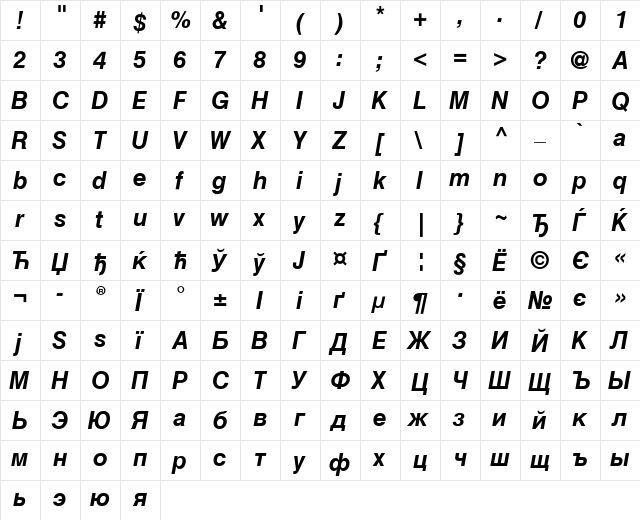
HelveticaCyr Upright Bold Italic
Design Context for HelveticaCyr Upright Typeface
HelveticaCyr Upright is a composed and adaptable typeface that performs quietly and consistently across a wide range of design contexts. The dynamic lean of this cut emphasises speed and emphasis in any layout. Its bold stroke weight gives it real presence on the page.
Pro Tip: Use HelveticaCyr Upright for emphasis, pull quotes, and subheadings where its slanted energy can add rhythm to the layout.